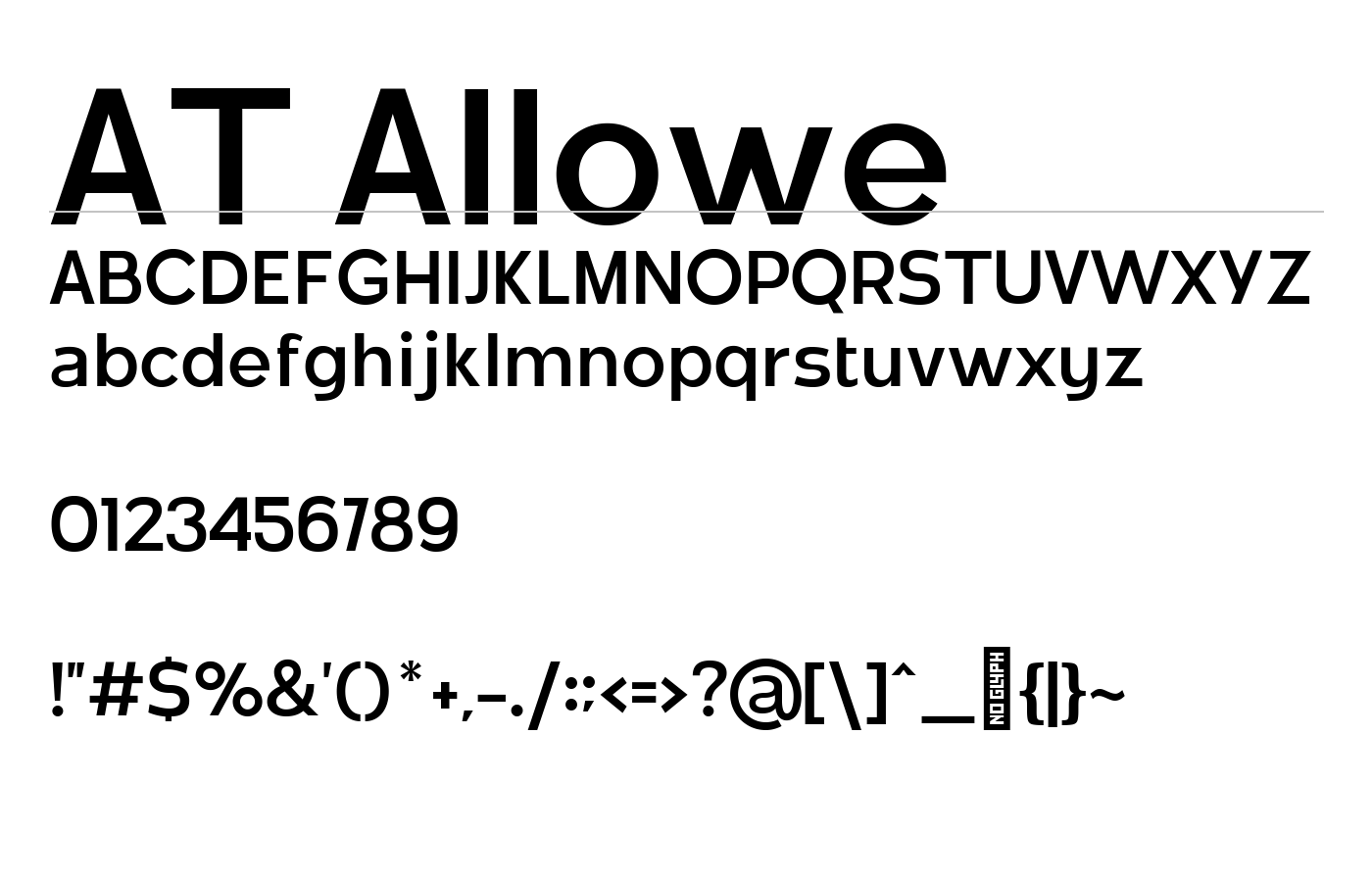
AT Allowe is a clean and modern sans serif font with a balanced, normal width and medium weight that offers excellent readability. Its simple, geometric letterforms with uniform stroke contrast and single-story characters create a contemporary and professional look, ideal for branding, editorial design, and digital interfaces. This versatile font works well for both headlines and body text, delivering a clear and approachable feel across a wide range of projects.
AT Allowe Font
About AT Allowe Font
| Font family | AT Allowe Font |
| Designer | Ardyana Putra |